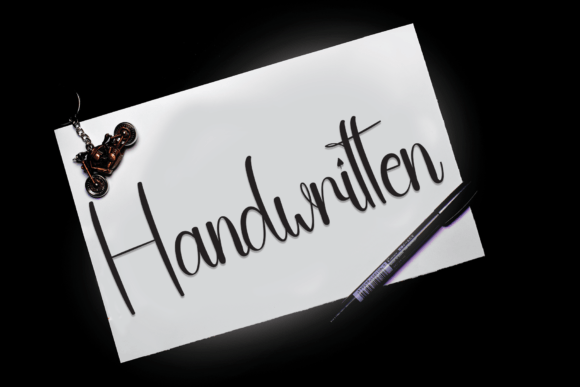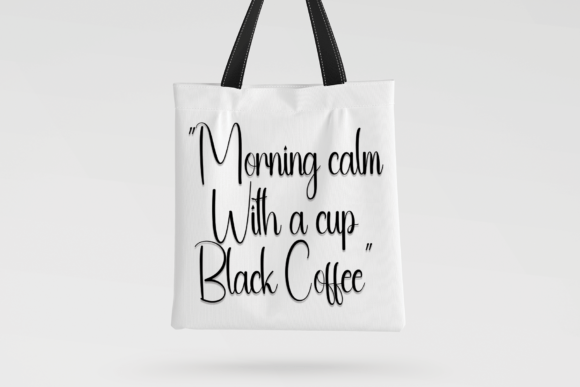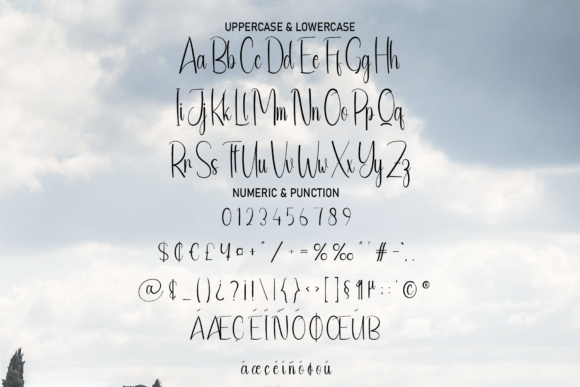
About Simple House Font
Simple House font is a beautifully designed handwritten typeface that brings charm and style to any project. Its modern handwritten style is ideal for a wide range of creative applications, making it a versatile choice for designers and hobbyists alike.
Perfect for Wedding Invitations and Stationery
The elegant letterforms of Simple House font make it an excellent option for wedding invitations and stationery. It adds a personal and romantic feel to save-the-date cards, thank-you notes, and event programs. Its flowing, delicate strokes create an inviting atmosphere that guests will appreciate.
Ideal for Social Media and Branding
Simple House font works wonderfully for social media graphics, logos, and branding materials. Its unique handwritten character gives brands a friendly, approachable vibe that stands out in today’s digital landscape. Use it to craft captivating posts, banners, and profile logos that connect with your audience.
Great for Product Packaging and Labels
Whether you’re designing labels, product packaging, or promotional materials, Simple Housefont adds a handcrafted and stylish touch. This makes it perfect for lifestyle products, boutique brands, and artisanal goods aiming to emphasize quality and authenticity.
Versatile for Various Creative Uses
Beyond packaging and branding, Simple Housefont shines on photography watermarks, advertisements, posters, and other design projects. Its legibility combined with elegant curves makes it suitable for both professional and personal creations that need a touch of handwriting charm.
Why Choose Simple HouseFont?
With its balance of modern flair and classic handwritten beauty, Simple Housefont offers flexibility and timeless appeal. It allows you to infuse your designs with warmth, personality, and elegance that audiences will love.